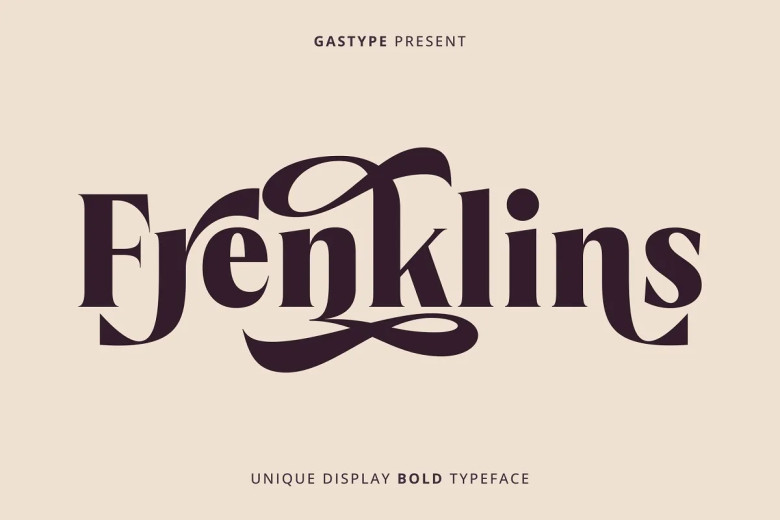
Frenklins Font
Frenklins is an appealing vintage-inspired display font created to be used for logos and trademarks, or creating headlines. It is versatile with Basic Latin Glyphs for easy text formatting; while its wide array of alternates allows designers to create truly original designs. Support for 64 languages ensures seamless communication to a global audience while still keeping its vintage charm.
Frenklins font is a dynamic font which combines vintage appeal, adaptability, and boldness for enhanced creative projects. The Private Use Area (PUA) feature allows for further personalization. Frenklins font has a Private Use Area feature for further personalization.
Frenklins Display Font